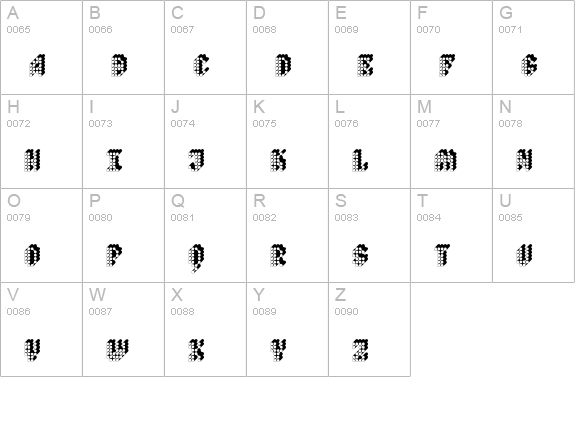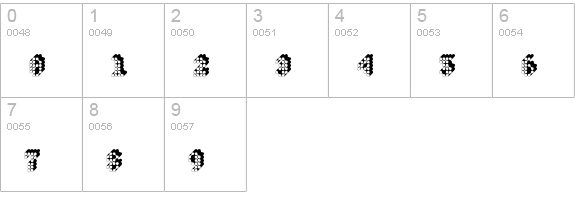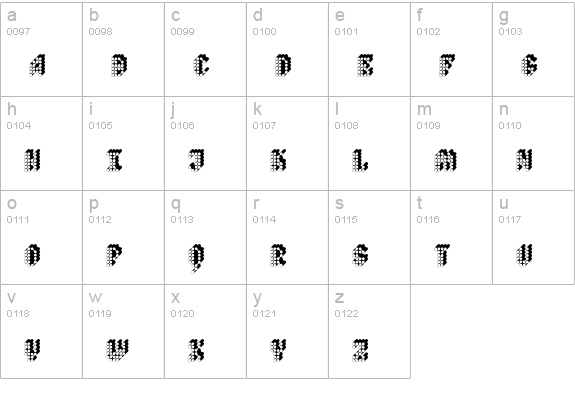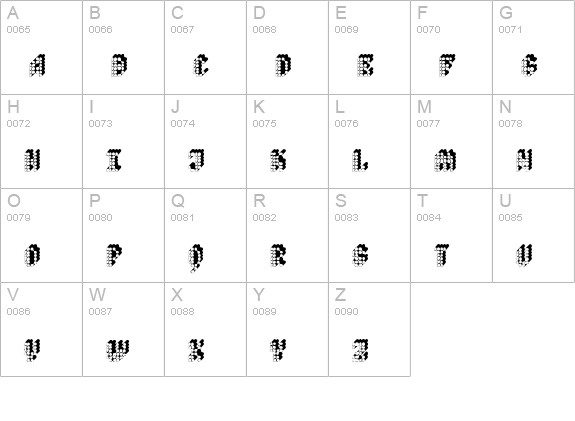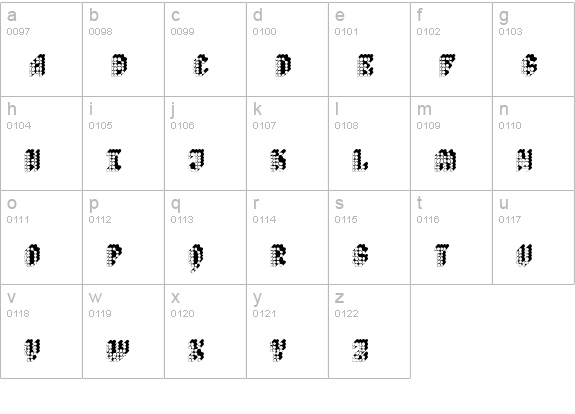
QuadPolyphony Font Details
Introducing QuadPolyphony, a mesmerizing font that is sure to captivate and inspire. With its unique fusion of modernity and elegance, QuadPolyphony is the perfect choice for those seeking a font that stands out from the crowd. This font boasts a harmonious blend of four distinct styles, each representing a different facet of its character. From the bold and confident Regular style to the delicate and graceful Italic, QuadPolyphony offers versatility and flexibility for any design project. What sets QuadPolyphony apart is not only its stunning aesthetics but also its functionality. This font is intelligently crafted to ensure legibility and readability, making it ideal for various applications such as branding, advertising, editorial design, and more. But what truly sets QuadPolyphony apart is its availability as a free download. Yes, you read that right! QuadPolyphony is freely available to download at FontsMarket.com. Now, you can elevate your designs without breaking the bank, making QuadPolyphony the perfect font for both professional designers and enthusiasts alike. Don't miss out on this incredible opportunity to enhance your creative projects with QuadPolyphony. Download it for free today at FontsMarket.com and experience the power of this visually striking font. Let QuadPolyphony be the harmonious melody that brings your designs to life.